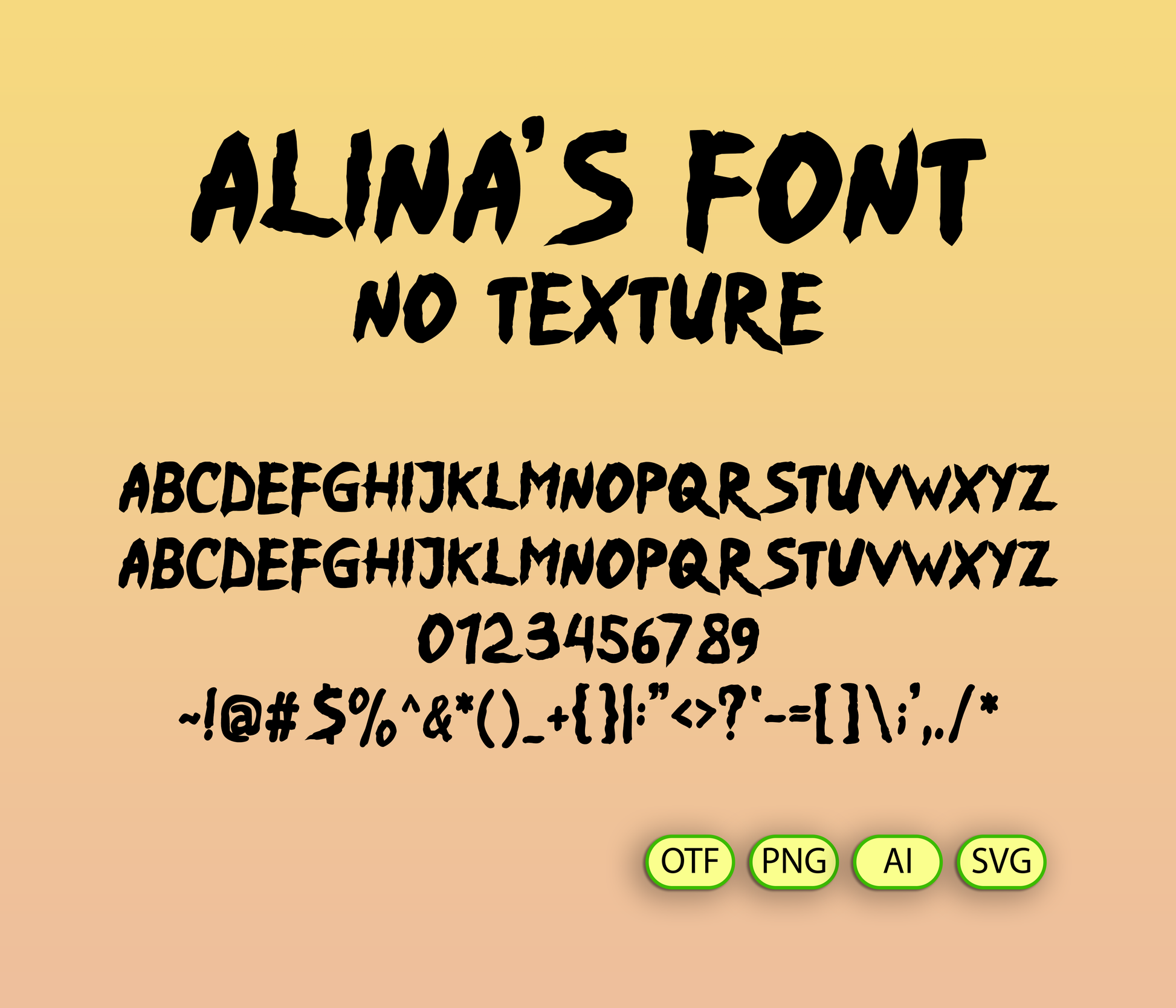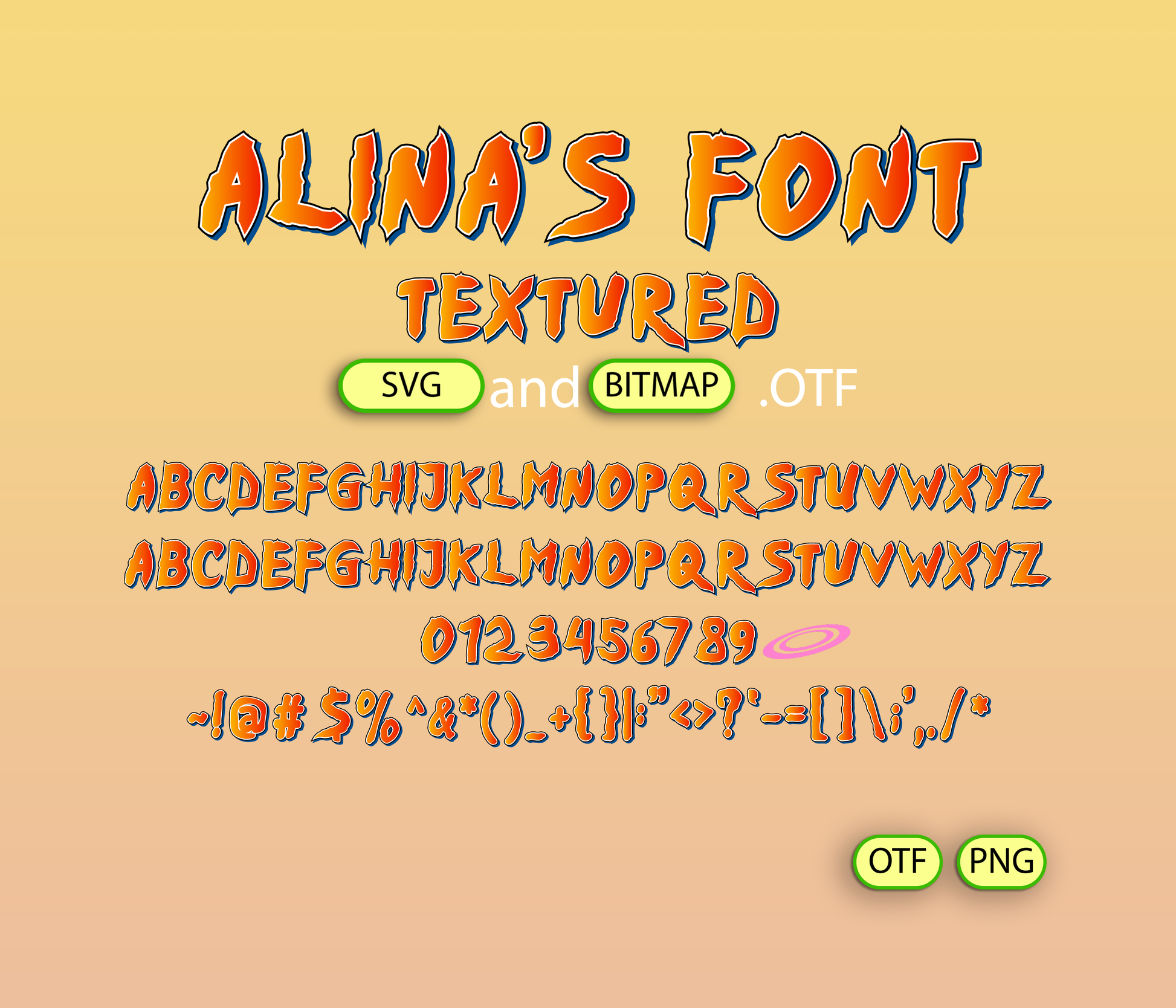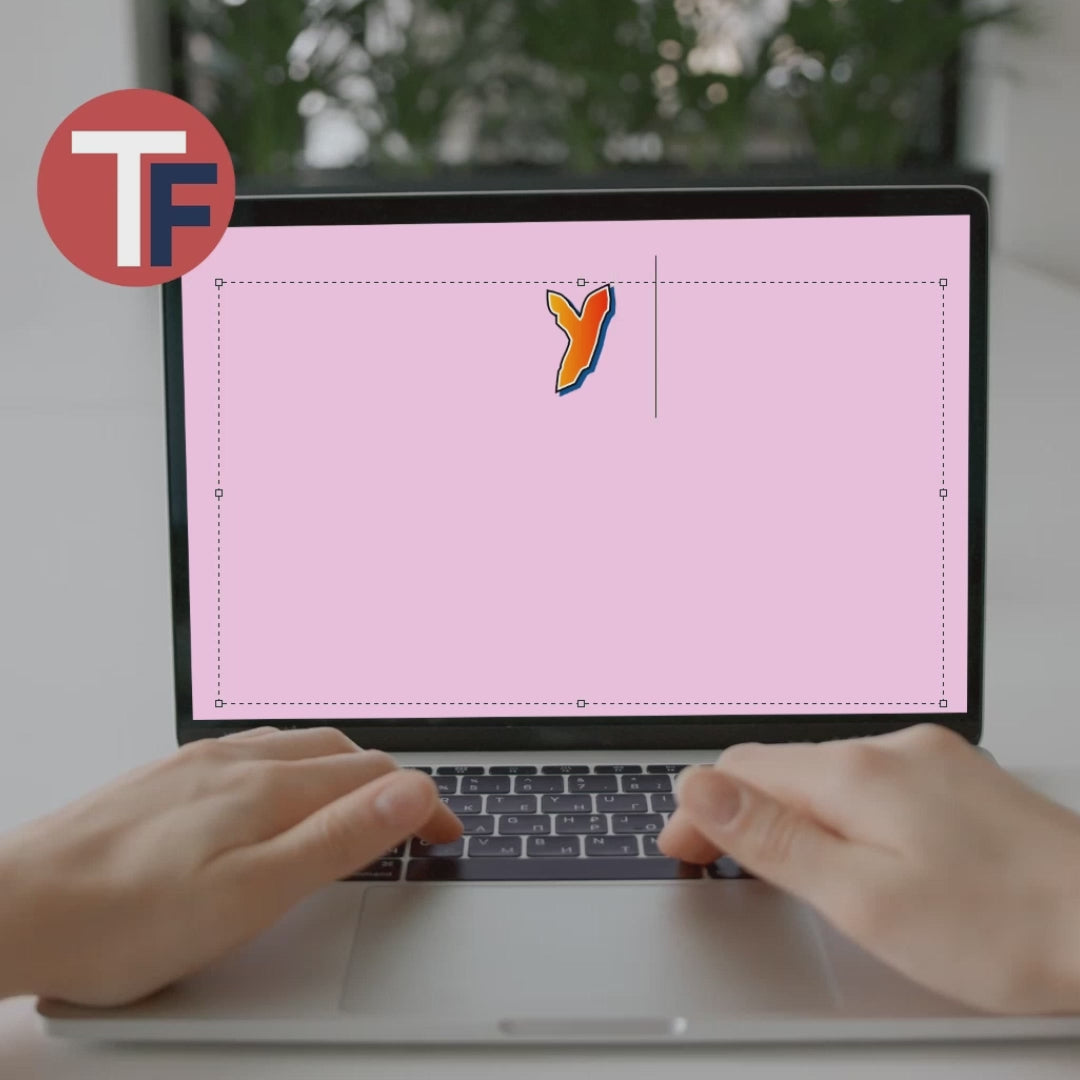
Ninja Quest Font Textured
Ninja Quest Font
Dive into the action-packed world of Konoha with our Ninja Quest font, designed to capture the spirit of the beloved anime series. Whether you’re a fan of the epic journey, the complex relationships, or the thrilling battles, this font embodies the essence of the ninja life that has captivated audiences around the globe. Ideal for fans, anime enthusiasts, and designers, our font allows you to bring a touch of the adventure and determination to your projects, ensuring your designs resonate with the energy and passion of the series.
Unleash Your Creative Ninja Our Ninja Quest font is incredibly versatile, suitable for both personal and commercial use, and perfect for a wide range of creative applications. Here’s how you can utilize this font in various projects:
- Anime-Themed Events: Create striking invitations and decor for viewing parties or anime conventions.
- Digital Content: Enhance your online presence with anime-inspired graphics for websites, blogs, or social media.
- Personalized Merchandise: Design custom apparel, stickers, and accessories for fellow fans.
- Decorative Art: Craft unique wall art or posters that bring the ninja world into your space.
- Educational Materials: Make learning fun with themed educational tools or presentations.
- Video Projects: Use the font in video titles, credits, or subtitles for fan-made content or reviews.
- Gaming Streams: Add a ninja flair to overlays or channel art for gaming streams related to similar themes.
- Stationery: Create custom stationery that fans would treasure.
- Advertising Campaigns: Use it in campaigns that target anime and manga communities.
- Cosplay Crafting: Design detailed guides or labels for cosplay creations.
Our Ninja Quest font package is not only rich in style but also in functionality. It includes both textured and non-textured variants, catering to a variety of design needs. Importantly, it features a version with no texture, ensuring compatibility with all types of software, including Canva. This accessibility makes it easy for users to incorporate the font into their projects seamlessly, whether they are using advanced design software or online platforms. The non-textured version is particularly user-friendly, offering smooth integration into any project without the hassle of dealing with texturing effects that may not always be necessary. This ensures that whether you’re creating for print or digital, the Ninja Quest font remains versatile and functional.